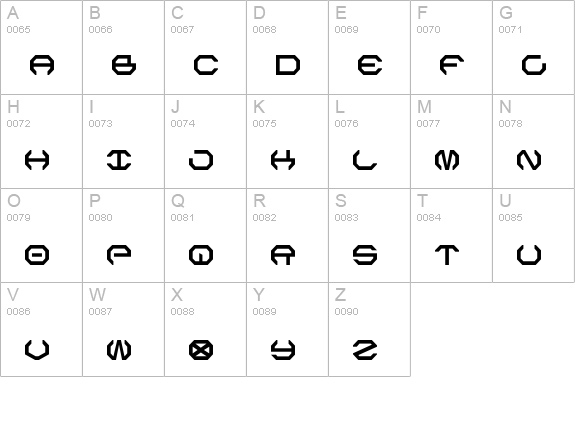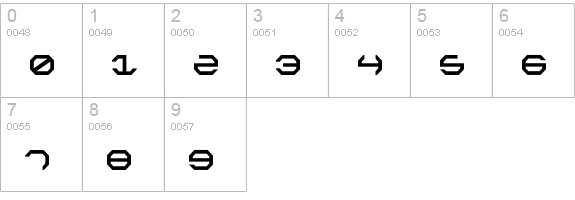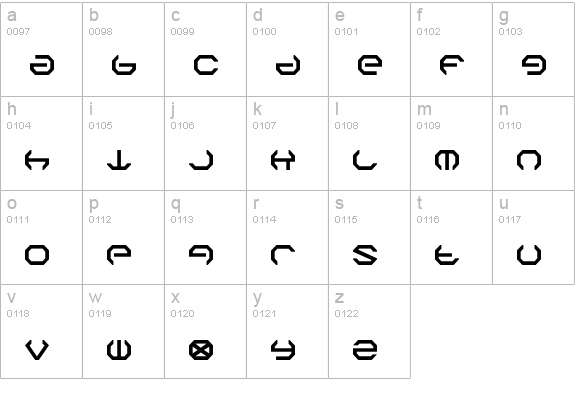
Introducing Omega Sentry font, a powerful and modern typeface that exudes strength and sophistication. With its sleek lines and bold presence, Omega Sentry is the perfect choice for projects that demand attention and impact. This versatile font is suitable for a wide range of design applications, from logos and branding to headlines and editorial layouts. What sets Omega Sentry apart is not only its striking design, but also its accessibility - this font is available for free download at FontsMarket.com. That's right, you can easily add this dynamic typeface to your collection without any cost. So why wait? Elevate your designs with Omega Sentry and make a lasting impression today.